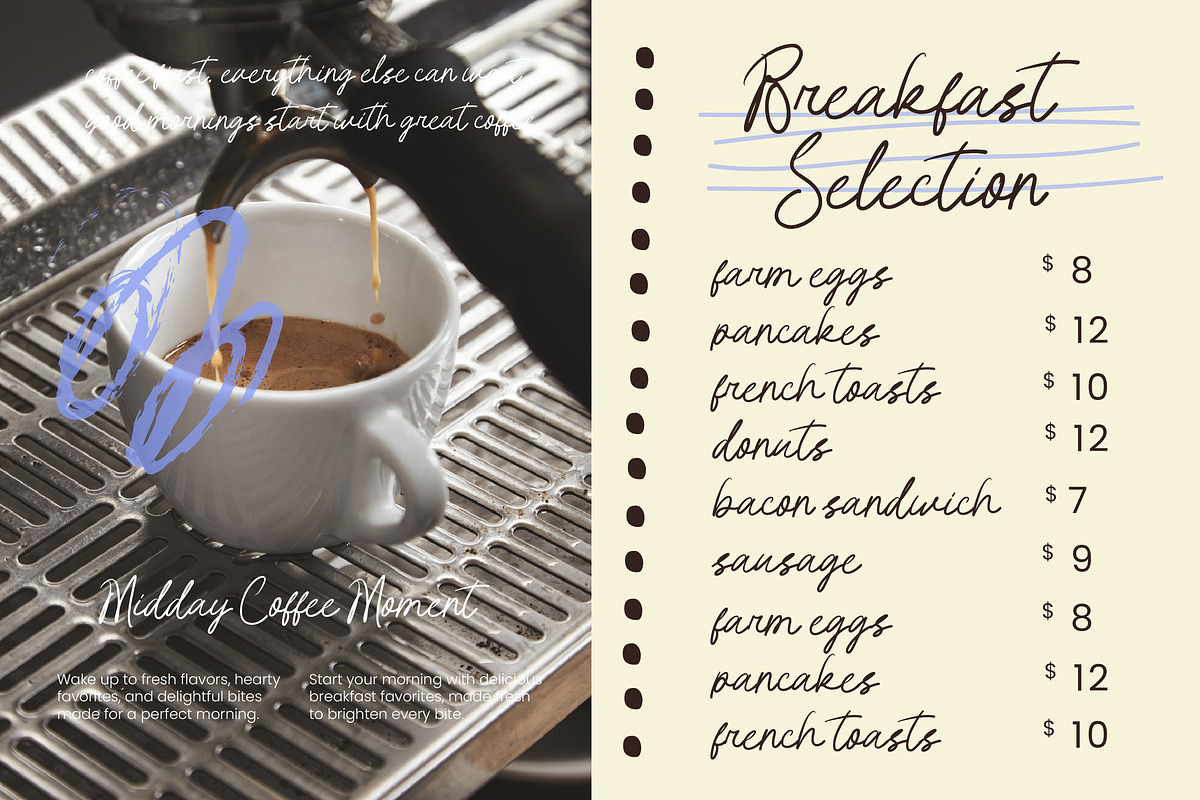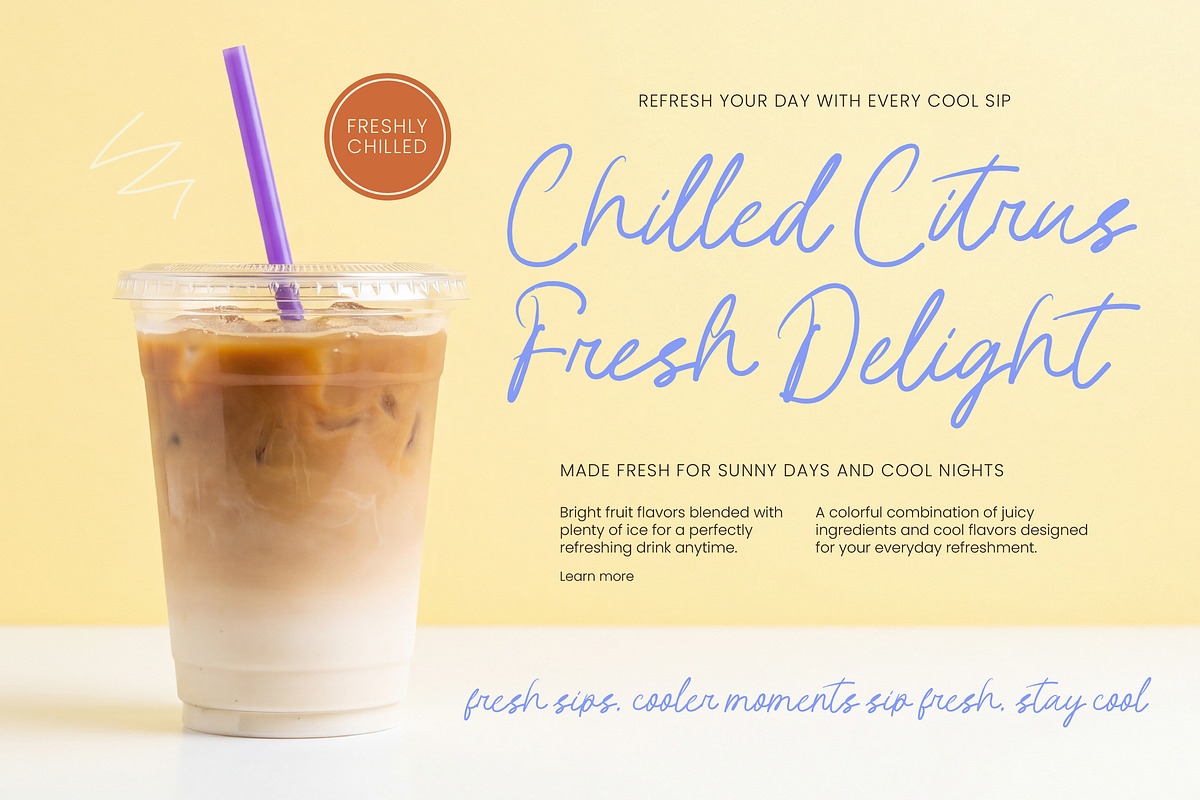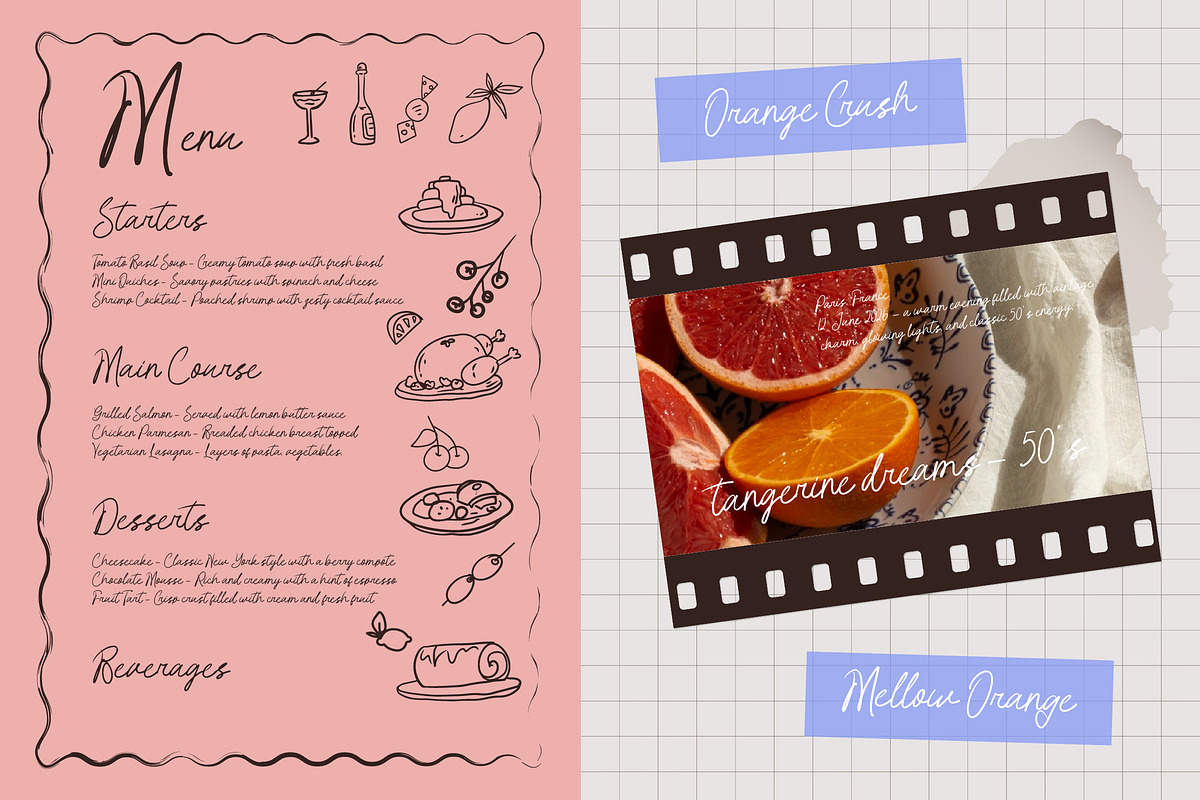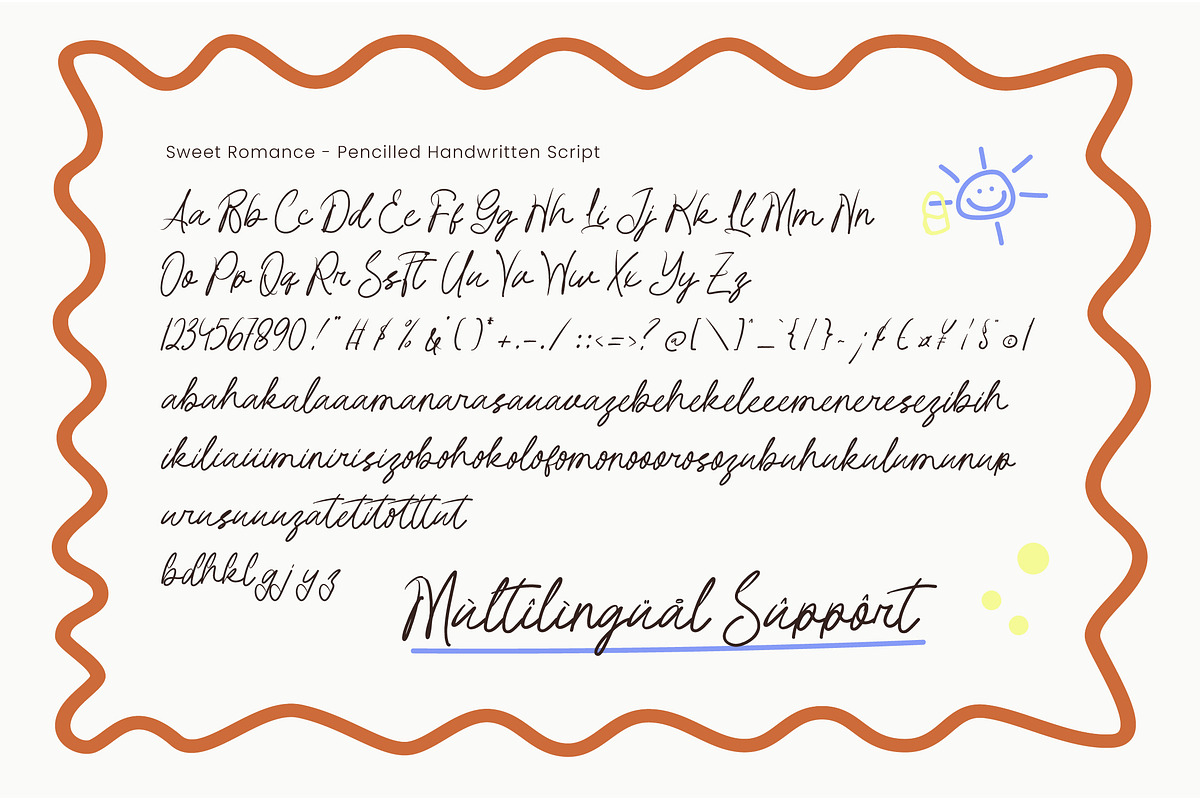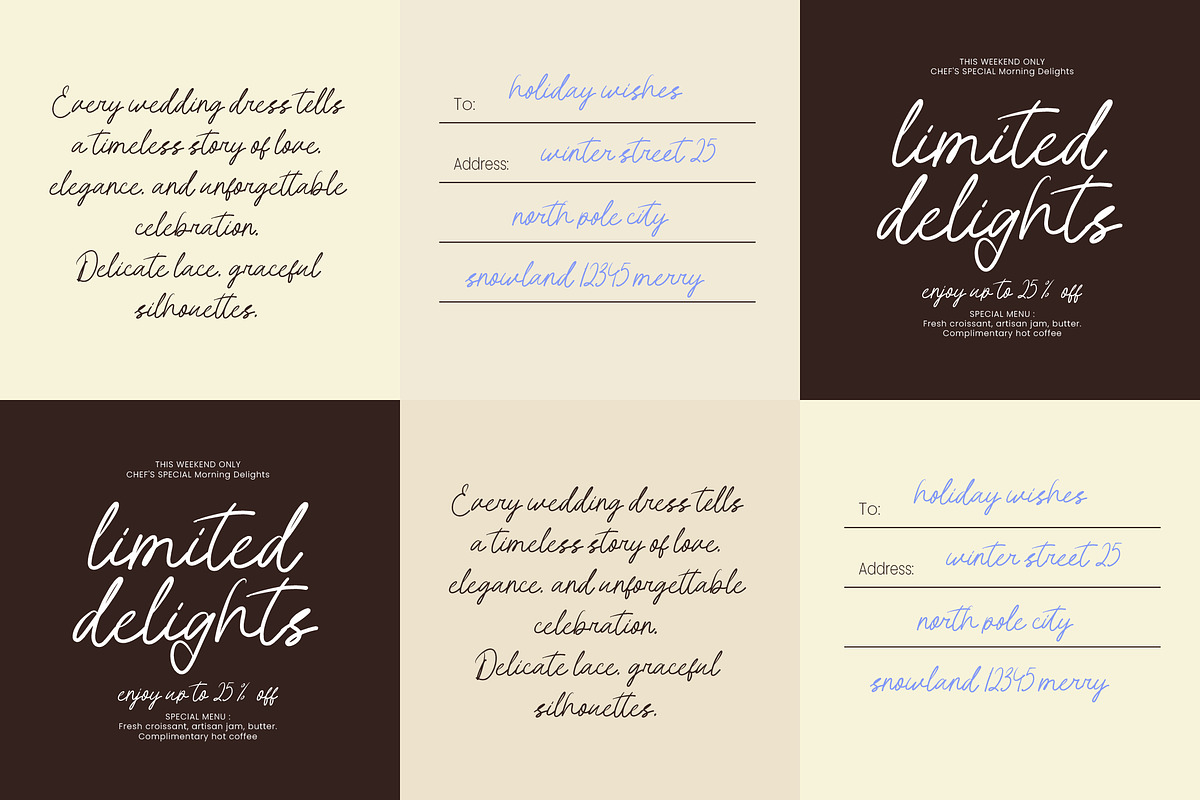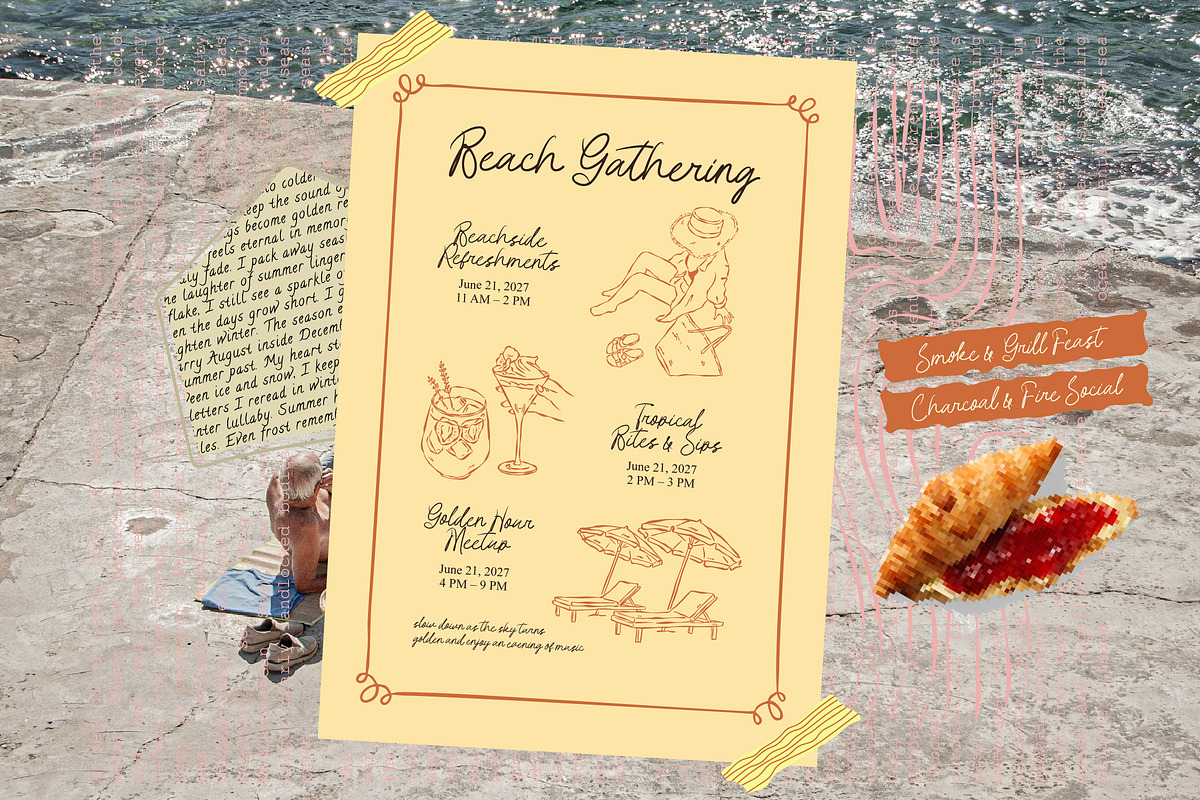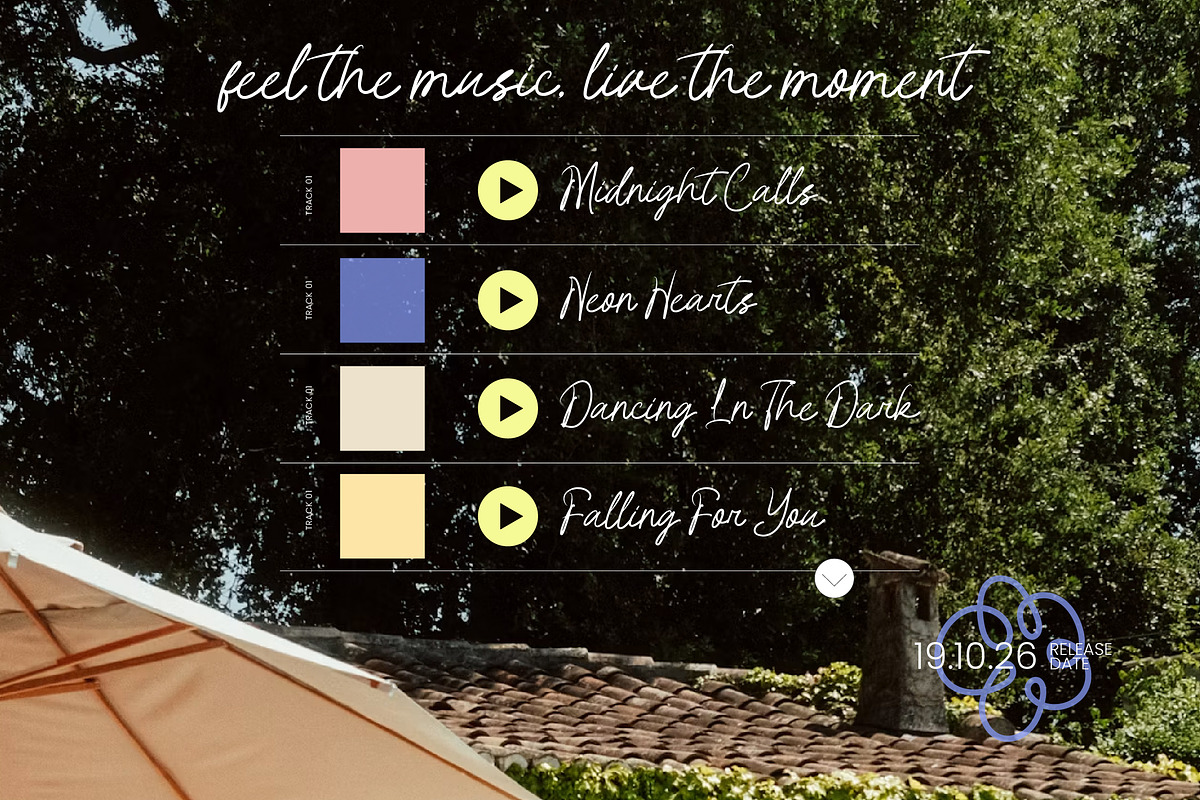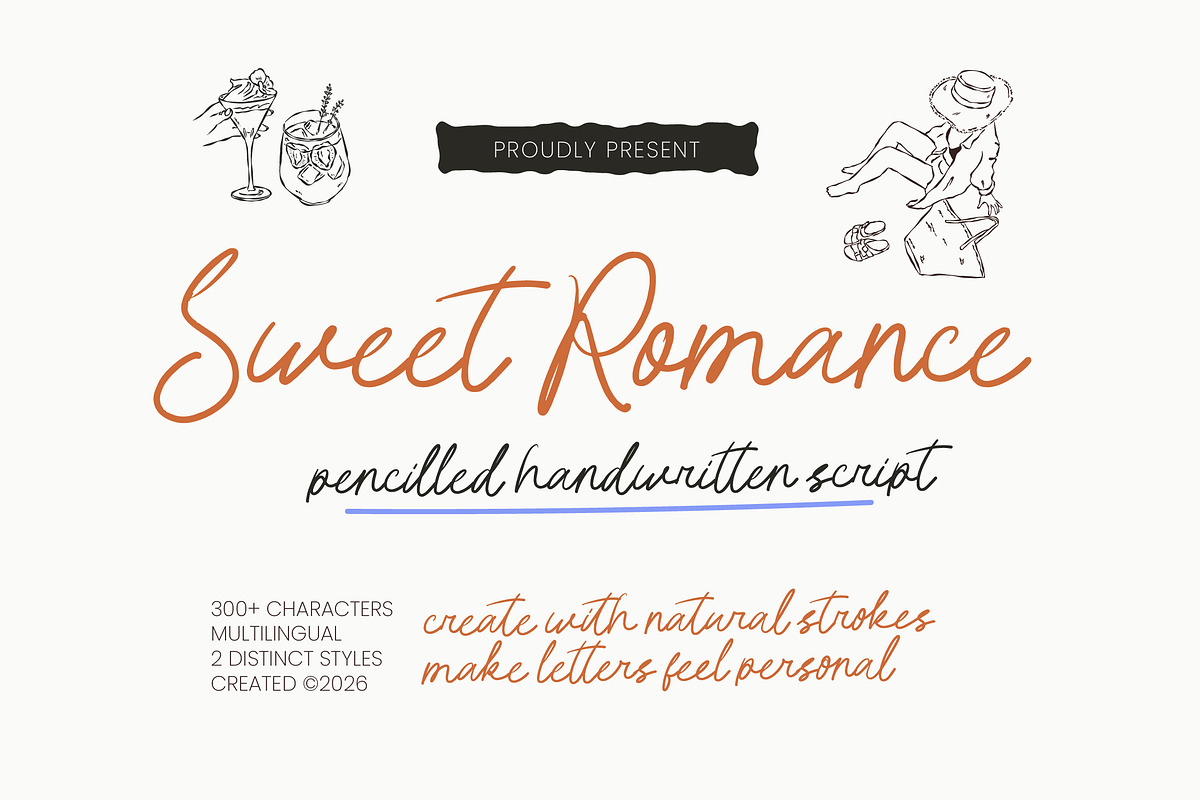
Sweet Romance Pencilled Script
Sweet Romance is a pencilled handwritten script font designed to capture the warmth, spontaneity, and charm of natural pencil handwriting. Inspired by handwritten notes, personal journals, recipe cards, creative stationery, and everyday storytelling, Sweet Romance delivers an authentic handwritten personality with soft textures and expressive character.
Featuring two distinct styles, this font allows designers to explore different handwritten moods while maintaining a cohesive and natural appearance. Its flowing strokes, organic rhythm, and casual elegance make it perfect for projects that require a personal, approachable, and genuinely handcrafted feel.
Whether used for branding, invitations, packaging, journals, social media content, greeting cards, or lifestyle visuals, Sweet Romance adds warmth and authenticity to every composition.
🎨 2 Distinct Handwritten Styles